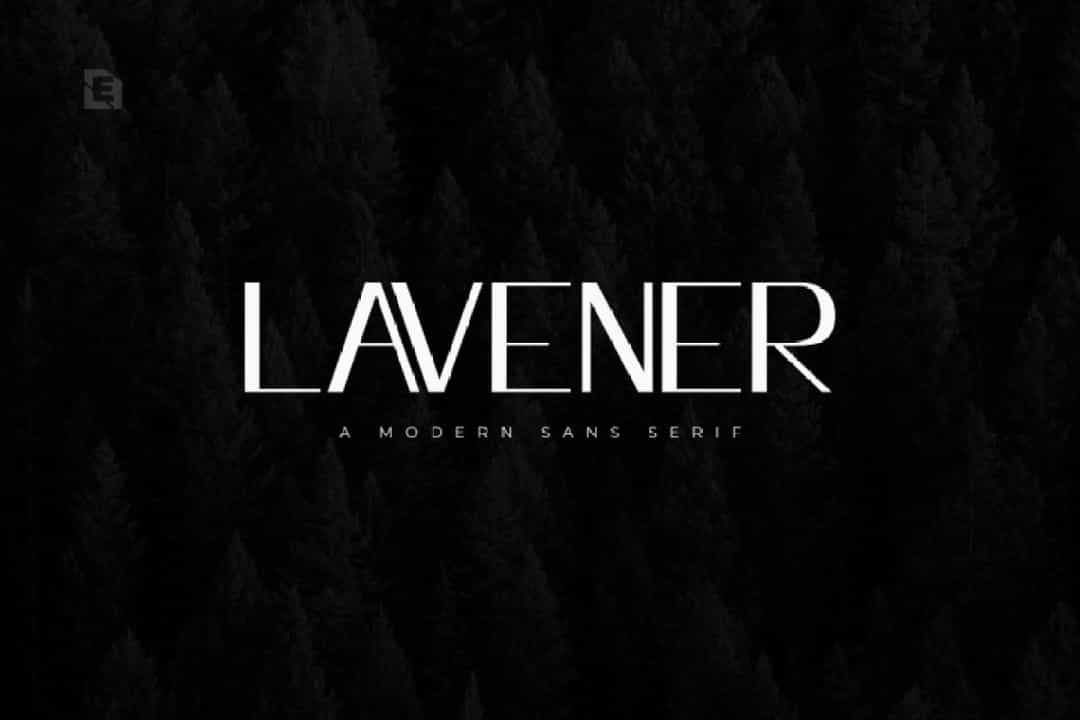
Lavener is a modern sans serif font designed for all kinds of creative work – be sure to incorporate this font into yours and witness its effectiveness! Be bold enough to incorporate Lavener into your designs and see which ones stand out!